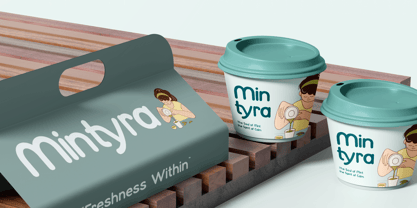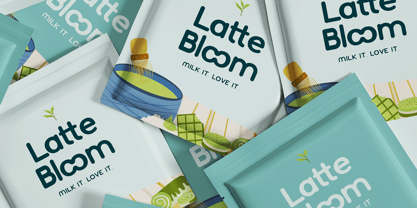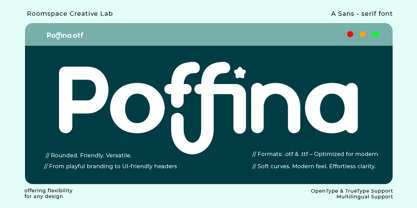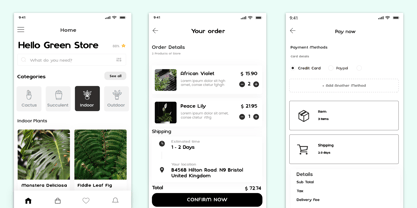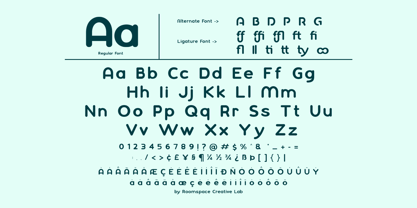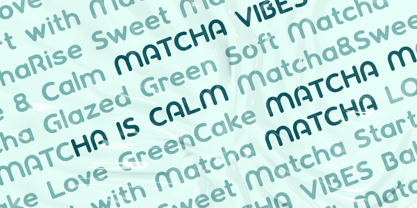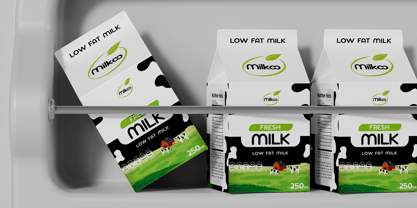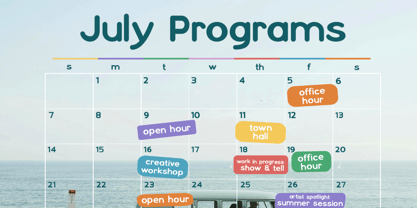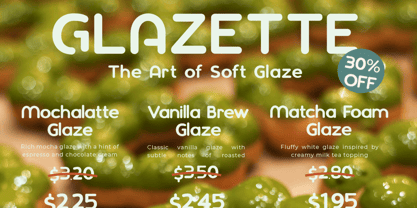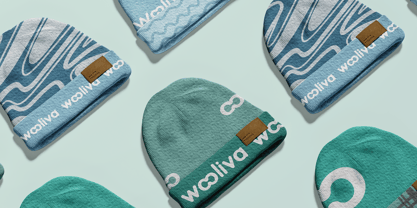
Poffina
by Jafar07
The Poffina Font Family was designed by Bakhrudin Ja'far and published by Jafar07. Poffina contains 2 styles and family package options. More about this family
Poffina a soft, rounded sans serif font that brings a playful touch to any design. With bouncy curves and a warm personality, it’s perfect for brands that want to feel approachable, fun, and modern. Poffina is super easy to use and works beautifully across logos, websites, social media, packaging, and more. Whether you’re designing for a kids’ brand, beauty, startup UI, or lifestyle blog, Poffina adds charm without trying too hard.
Designers: Bakhrudin Ja'far
Foundry: Jafar07